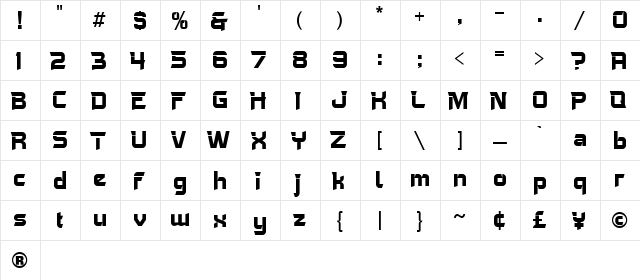
Ketsana Regular
| Foundry | Rimando N. Nillo, Jr. |
| Designer | dondon nillo |
Design Context for Ketsana Typeface
Ketsana takes a measured approach to typography — its balanced proportions and neutral character make it a reliable workhorse for both digital and print work.